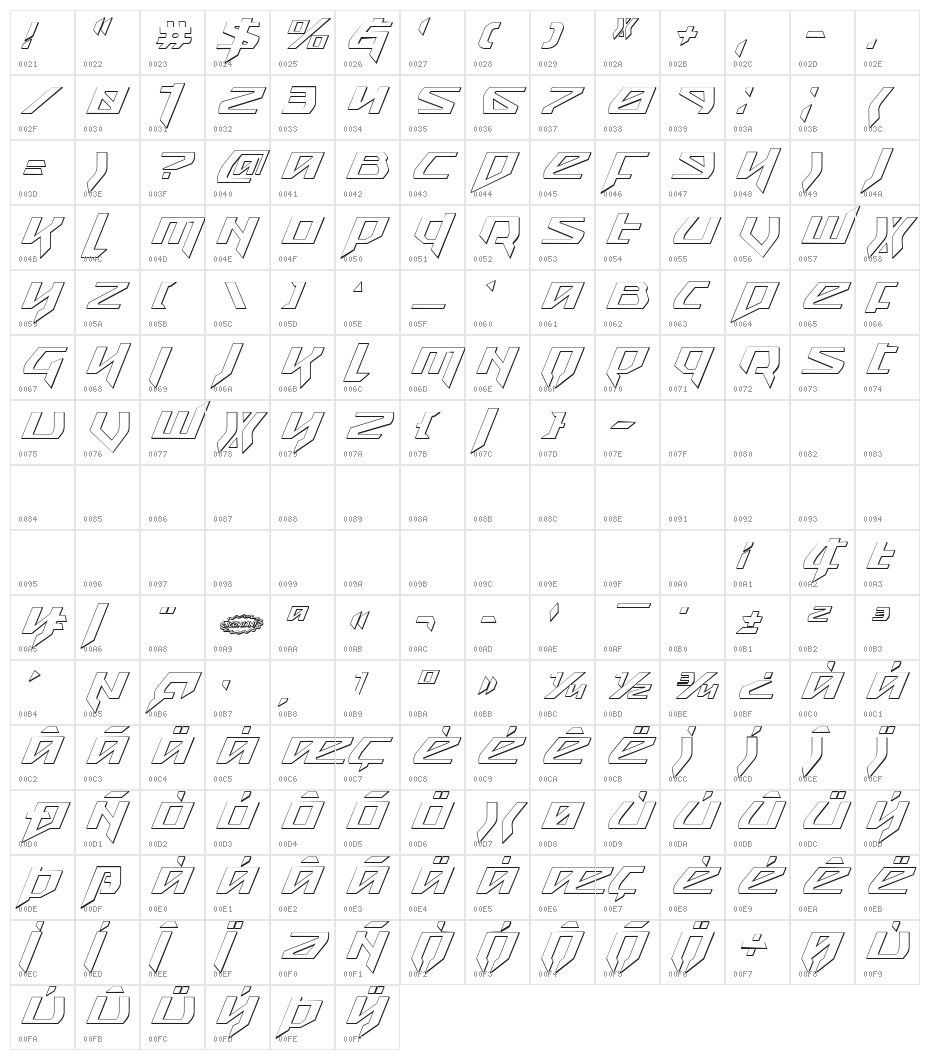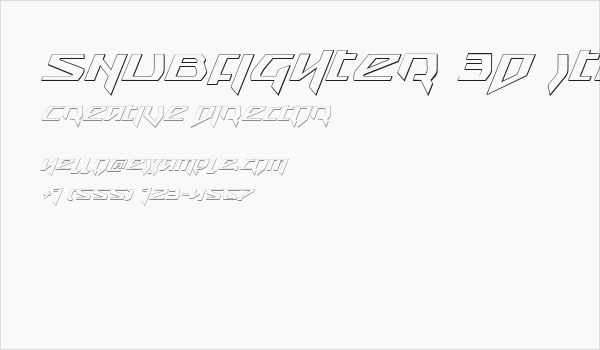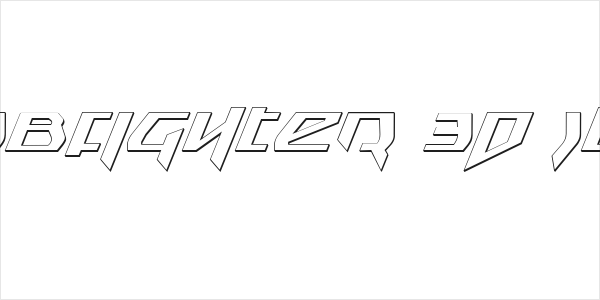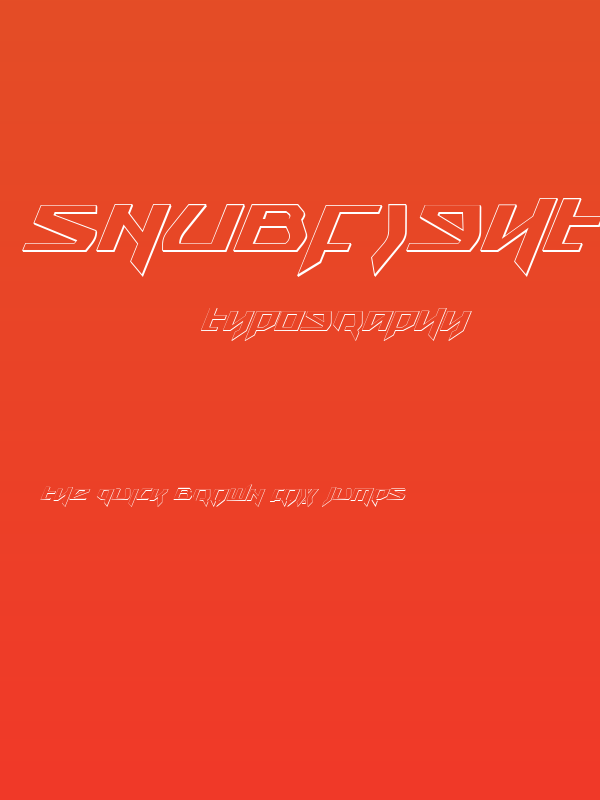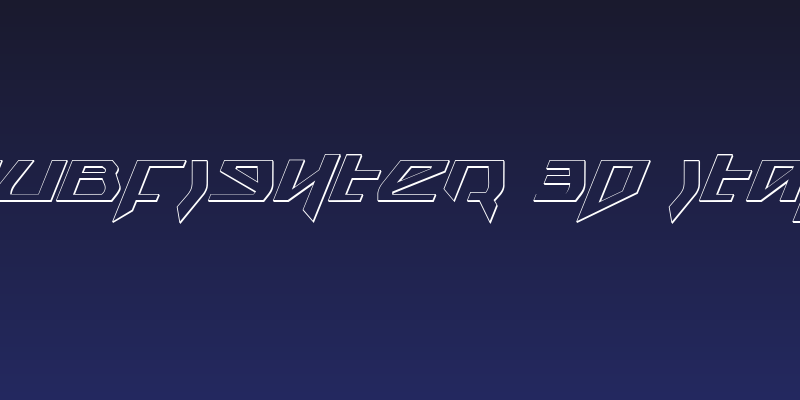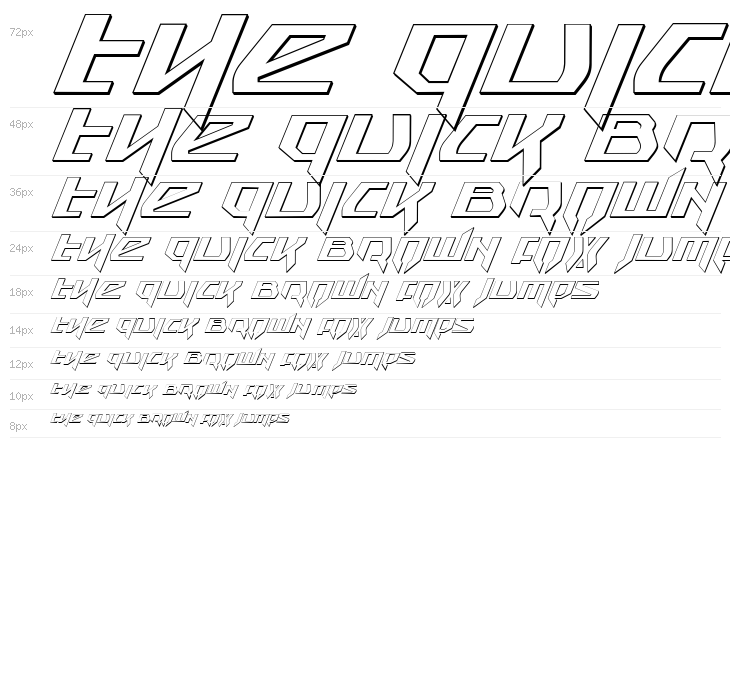
Snubfighter 3D Italic Font
Snubfighter 3D Italic Description
This font features a bold, angular design with a futuristic and dynamic appearance. Each character is crafted with sharp edges and a 3D effect, giving it a sense of depth and movement. The italicized style adds to its energetic and forward-leaning look, making it ideal for projects that require a modern and edgy aesthetic. The uppercase and lowercase letters maintain a consistent style, while the numbers and special characters are designed to complement the overall theme. This font is perfect for creating impactful headlines, logos, and designs that need a strong visual presence.